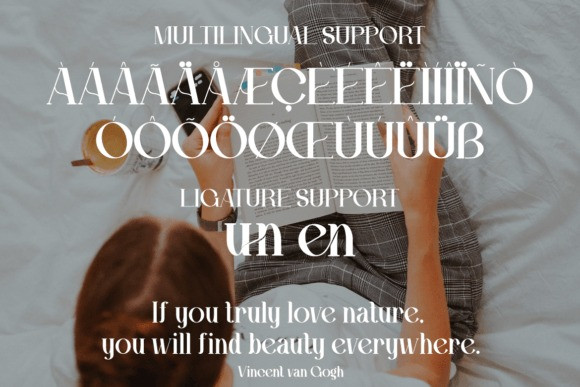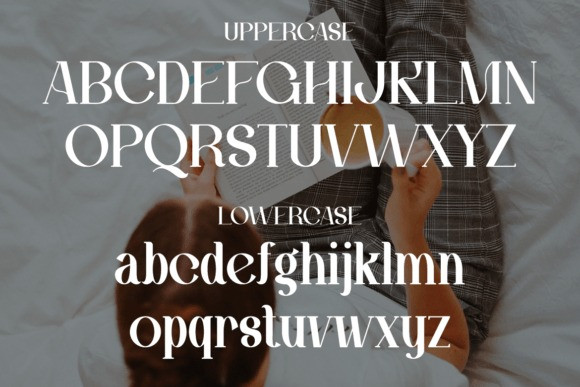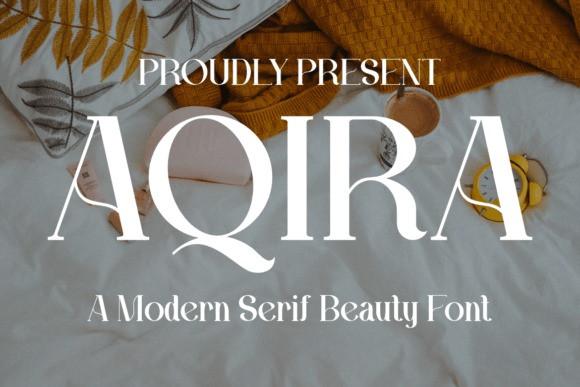
Aqira Font
Aqira Font – Serif Beauty – Modern Font is a bold and authentic display font. The font is suitable for any branding project like logo, template design, esport, and many more. outstanding in a wide range of contexts.